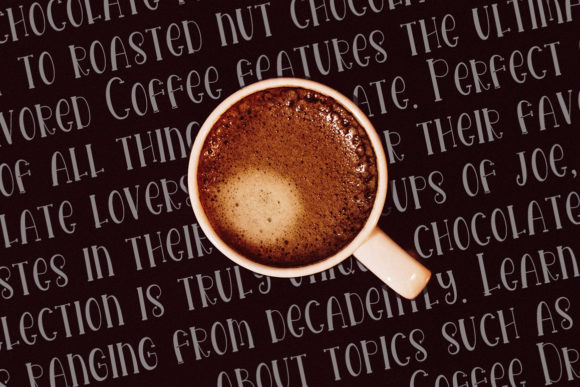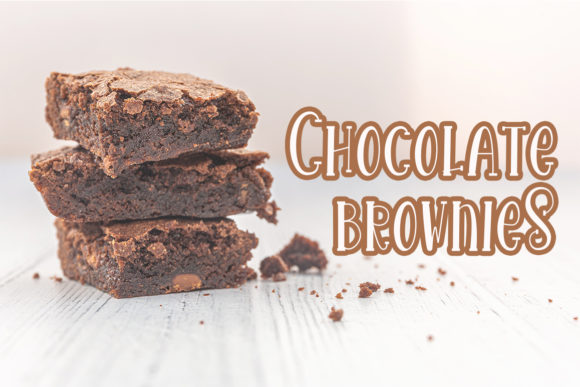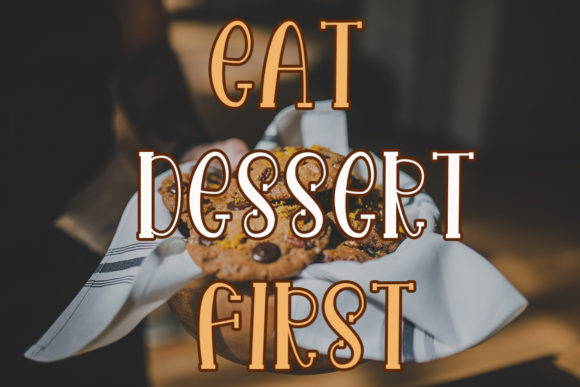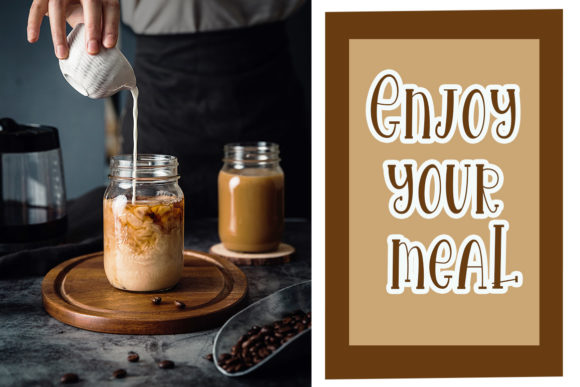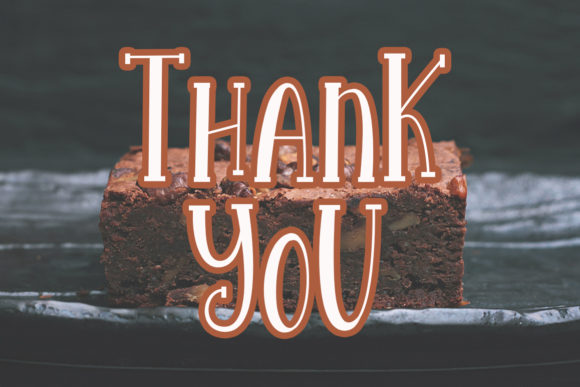
Get Ready to Indulge in the Sweetness of Design
Have you ever found yourself scribbling down ideas in a notebook, only to realize that your handwriting has become a crucial part of your creative process? For many designers, their handwriting is a reflection of their unique style and personality. It’s in these moments of pure creativity that we discover the true essence of design.
Enter Brownies Chocolatos Font, a delightful handwritten font that’s sure to satisfy your design cravings. This charming font is designed to bring a touch of warmth and friendliness to any project. With its natural and unique style, Brownies Chocolatos Font is the perfect companion for designers looking to add a personal touch to their work.
Whether you’re a seasoned designer or just starting out, Brownies Chocolatos Font is an invaluable tool that will help you unlock your full creative potential. Its versatility makes it an ideal choice for a wide range of designs, from logos and branding to digital art and more. So why settle for a generic font when you can indulge in the sweetness of Brownies Chocolatos Font?
Brownies Chocolatos Font Key Features
- Font Family: Brownies Chocolatos
- Unique Characteristics: The font features a playful, whimsical design with a focus on chocolate-themed elements, making it suitable for dessert-themed packaging, branding, and advertising.
Brownies Chocolatos Font Review
Overall, I think Brownies Chocolatos Font is a solid choice for anyone looking for a playful and fun font. It works well in situations where you want to add a bit of whimsy and energy to your design. ✨
Here are some of its strengths:
- Unique and quirky design: Brownies Chocolatos Font has a distinct and eye-catching appearance that’s sure to grab attention.
- Wide range of applications: It’s suitable for a variety of uses, from logos and branding to packaging and advertising.
- High-quality typography: The font’s rendering is crisp and clear, even at larger sizes.
- Readability issues: The font’s unique design can sometimes make it difficult to read, especially for longer blocks of text.
- Not suitable for formal use: Brownies Chocolatos Font is best used in casual or playful contexts – it may not be the best choice for formal or professional applications.
Overall, I’d give Brownies Chocolatos Font 4 out of 5 stars. It’s a fun and versatile font that can add a lot of personality to your design. Just be mindful of its limitations and use it in contexts where it will shine. ⚠️
For best results, use the font in a creative project, such as a dessert-themed invitation or a food blog post.
For best results, use the font in a design project that requires a playful, whimsical feel, such as a children’s book or a dessert-themed advertisement.
For best results, use the font in a presentation or document that requires a fun, eye-catching font, such as a dessert-themed presentation or a recipe book.
The Brownies Chocolatos font is ideal for use in:
- Dessert-themed projects
- Dessert-themed advertisements
- Playful, whimsical designs